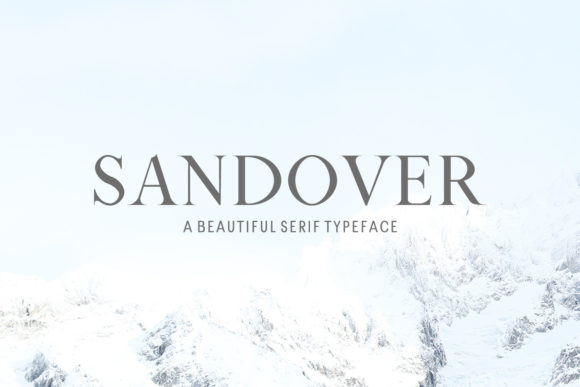
Journey through the world of typography with the Sandover Family Font, a serif masterpiece that embodies elegance and versatility. As you explore its five distinct weights, discover a kaleidoscope of design possibilities, transforming your creative visions into tangible realities. With Sandover by your side, you'll unveil a new dimension of visual artistry.
Step into a realm where headers dance with sophistication, posters come alive with captivating stories, and branding takes on a timeless allure. Sandover's presence elevates your packaging designs, breathes life into presentations, and lends a touch of distinction to your logos. Allow your quotes to radiate with personality, titles to command attention, and magazine headings to captivate readers with their magnetic pull.
Unleash your creativity in web layouts, crafting digital experiences that resonate with your audience. From eye-catching advertisements to heartfelt invitations, Sandover weaves its magic, leaving an indelible mark on your designs. Let your packaging designs exude a touch of artistry, and transform books into captivating companions, forever cherished by readers.
With Sandover as your creative ally, the possibilities are boundless. Its versatility extends to any design endeavor, empowering you to craft masterpieces that transcend the ordinary. Embrace the beauty of typography and immerse yourself in the Sandover experience, where imagination knows no limits.